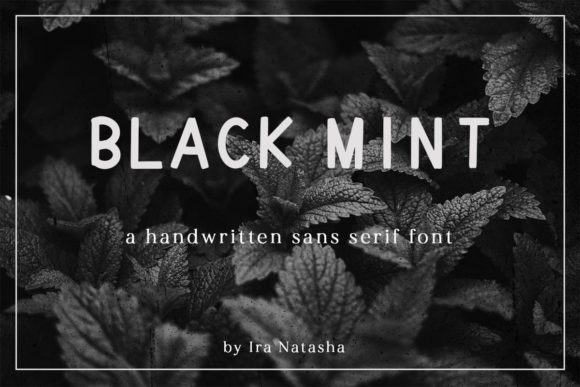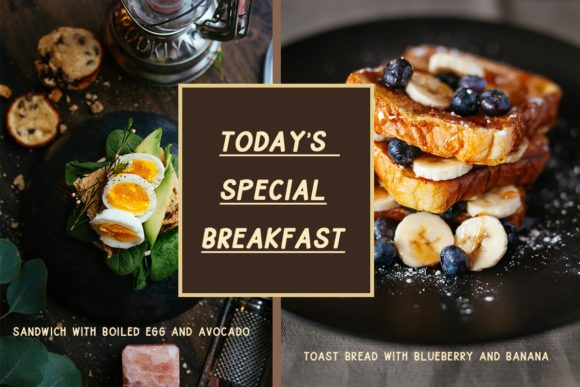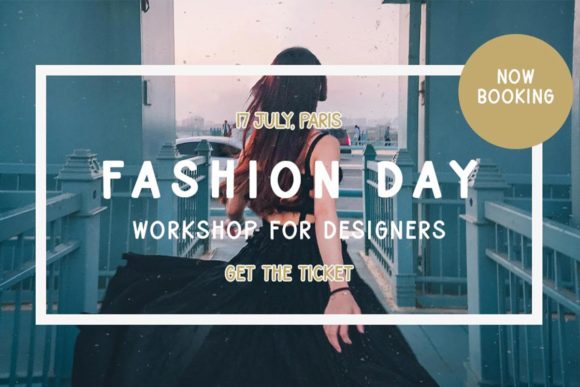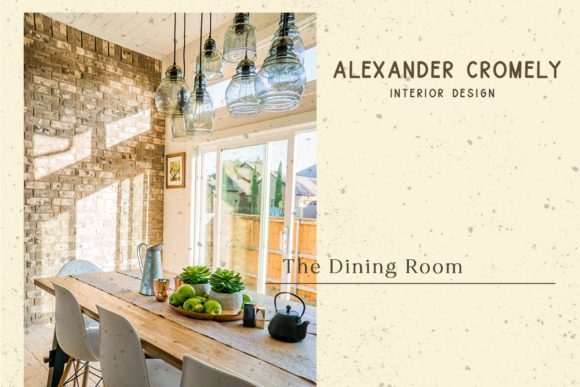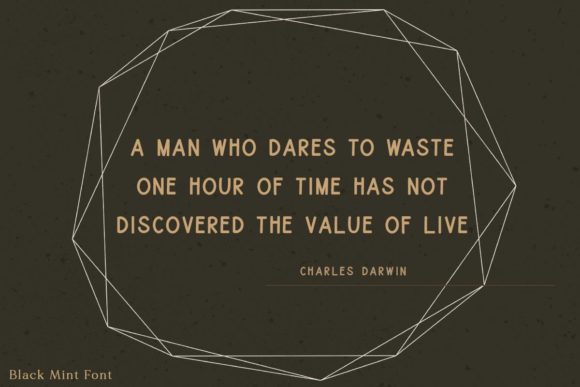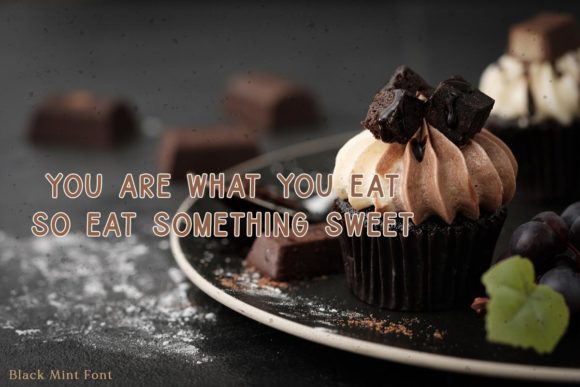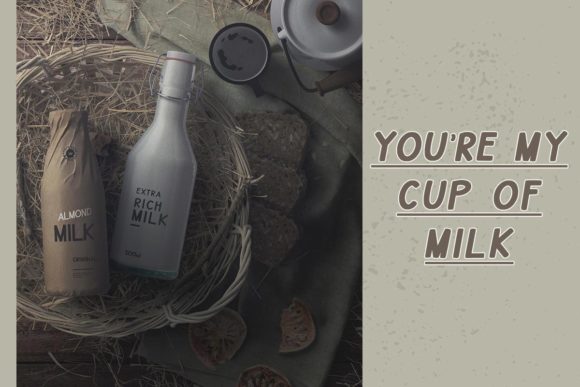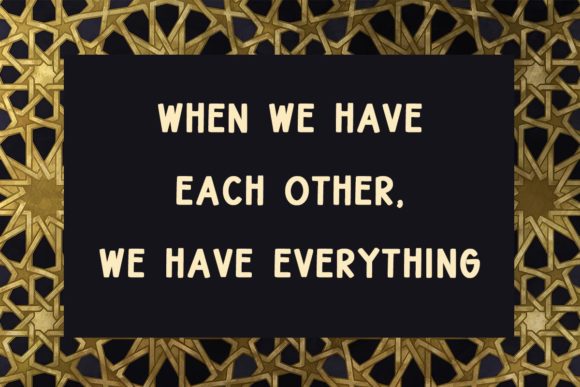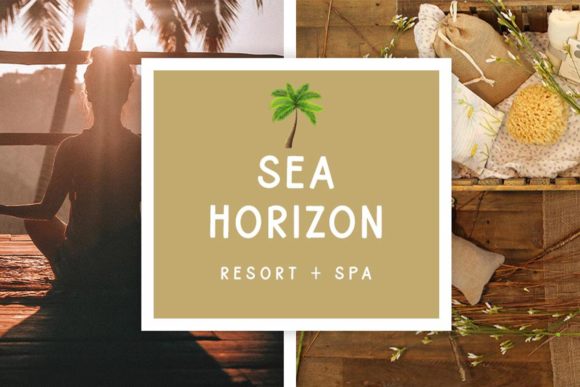
Black Mint is a minimal and neat sans serif font. It can easily be matched to an incredibly large set of projects, so add it to your creative ideas and notice how it makes them stand out!
Black Mint Font